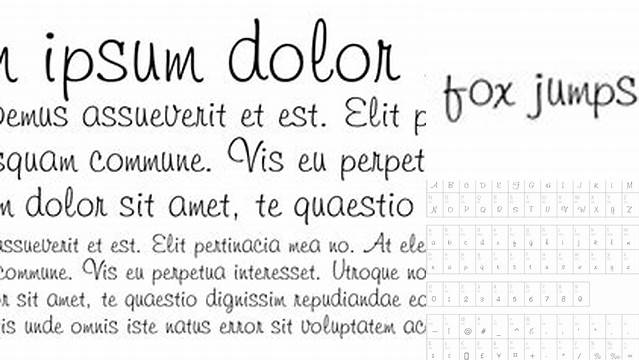
Freehand 591 Regular Font: A Complete Guide
Freehand 591 Regular: A Comprehensive Guide
Hey everyone! Let's dive into Freehand 591 Regular, a typeface that's been making waves in the design world. This isn't just any font; it's a statement, a personality, and a tool all rolled into one. In this article, we'll unpack everything you need to know about Freehand 591 Regular, from its origins and characteristics to how you can leverage it in your own projects. Buckle up, because we're about to get font-astic!
The Genesis of Freehand 591 Regular: Where Did It All Begin?
So, where did this awesome font come from? Freehand 591 Regular is a member of the Freehand family, a collection of fonts that pay homage to the art of... well, freehand lettering. Think of it as the digital embodiment of that cool, hand-drawn look. The specific creation of Freehand 591 Regular is tied to its design, intended to mimic the feel of strokes made with a pen, marker, or brush. The design's primary goal was to provide designers with a typeface that appears natural and less rigid, like a handwritten note or a casually drawn illustration. This particular font in the family is "Regular", a nod to its standard weight, providing the base for other variations in the family, such as bold or italicized versions. These variations allow for wider use and emphasize different aspects of a design. The font's creation aimed to blend the accessibility of a digital format with the organic and human touch of traditional art. It's about bringing the warmth and personality of hand-drawn work into the sleek, modern world of digital design.
This typeface is a result of a specific design approach, usually by a designer or design team, focusing on capturing the humanistic aspects of lettering. The creators of this typeface likely had a vision of providing a font that's expressive and adaptable. The "Regular" version is the foundational element, providing a neutral base that can be built upon with different weights and styles. The design emphasizes the importance of a personal touch. Freehand 591 Regular is designed to be flexible, suitable for a range of applications, from headings and titles to smaller blocks of text, making it incredibly versatile for various design needs.
This font aims to capture the raw essence of hand-drawn letters. The creators may have used digital tools to refine the design, ensuring it retains the original aesthetic. The design's core philosophy is to infuse a sense of artistry into every project. Its goal is to be expressive, adding a human element to the design process, while also maintaining digital usability. Whether you're a seasoned designer or just starting out, Freehand 591 Regular opens up possibilities to inject a sense of personality and creativity into your work, making it more memorable and visually engaging.
Unveiling the Characteristics: What Makes Freehand 591 Regular Unique?
Alright, let's talk about what makes Freehand 591 Regular tick. Its most obvious feature is its hand-drawn aesthetic. Unlike the clean, crisp lines of some sans-serif fonts, this one has a more organic feel. The strokes have a subtle unevenness, which makes it look as if it's been penned by a real person. This imperfection is a key part of its charm. It's designed to mimic the variances in hand-drawn strokes, giving it a unique and authentic feel that is hard to replicate with other fonts. This makes it stand out in a world of overly polished digital creations, offering a refreshing and personal touch.
Beyond the visual aspect, consider the readability. Despite its seemingly informal style, Freehand 591 Regular is surprisingly legible. The designers have carefully crafted each character to ensure that it's easily recognizable, even in smaller sizes. This combination of artistry and functionality makes it ideal for a wide variety of applications. It brings the charm of handcrafted design and marries it with the practicalities of digital use, ensuring it is both visually appealing and easy to use. The designers have paid careful attention to the balance between expressiveness and clarity, making sure the font is as functional as it is aesthetically pleasing.
The spacing between the characters is another key feature. The letterforms are designed to flow naturally together, creating a rhythm and balance that makes the text easy on the eye. The aim is to provide a harmonious visual experience. This attention to detail makes the font a pleasure to read, inviting viewers to engage with the content. Whether you're designing a poster, a website, or a logo, the characteristics of Freehand 591 Regular will create a professional feel with a handmade aesthetic. This font is all about adding a personal touch to your design, and the thoughtful design details ensure that this aim is successful.
Practical Applications: Where Can You Use Freehand 591 Regular?
Okay, now for the fun part: How can you actually use Freehand 591 Regular? The good news is, it's super versatile! It's fantastic for headings, titles, and logos where you want to make a bold statement. Think of it as the perfect font for making your brand or design project stand out. The hand-drawn style immediately grabs attention and conveys a sense of creativity. For example, imagine using it for a cafe logo to suggest a warm, welcoming atmosphere or for the title of a creative blog, communicating personality and approachability. It has the ability to immediately draw the viewer's eye, making it an excellent choice for making important messages more memorable.
It also works great for shorter blocks of text, like pull quotes or emphasized phrases. When you want to highlight a particular sentence or a significant idea, Freehand 591 Regular can add emphasis. Its unique style ensures that important information does not get lost in the design. The visual distinction helps to draw the reader's attention, creating a stronger impact and leaving a lasting impression. The font's style means it can break up the monotony and make your design more interesting, ensuring that the audience stays engaged and remembers the key points.
However, it's generally not the best choice for long paragraphs of body text. Because of its slightly more informal style, it can be a bit tiring to read in large quantities. It's best used in short bursts to create visual interest. It helps to add a bit of personality, but can be overwhelming if used in large amounts. Think of it as a seasoning – a little goes a long way! Use it strategically to spice up your designs, not to dominate them. This approach is the key to making the most of Freehand 591 Regular's unique features, ensuring that it works in perfect harmony with your overall project goals.
Conclusion: Embrace the Freehand 591 Regular
In a nutshell, Freehand 591 Regular is a fantastic font that brings a touch of handcrafted charm to your digital projects. With its unique style and versatility, it's a valuable asset for any designer. From creating eye-catching headlines to adding a touch of personality, this font can enhance your designs. By understanding its features, applying design tips, and knowing where to find it, you're well on your way to using this font effectively. Go out there and start experimenting. With its distinctive character, Freehand 591 Regular will make your designs memorable. Whether you are a professional designer or a hobbyist, this font gives you the means to express your creative ideas. Now go forth and make some beautiful art!